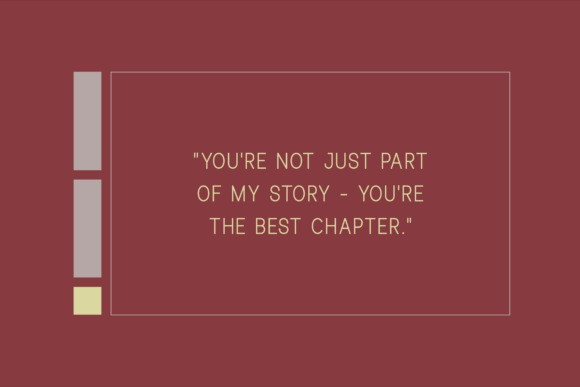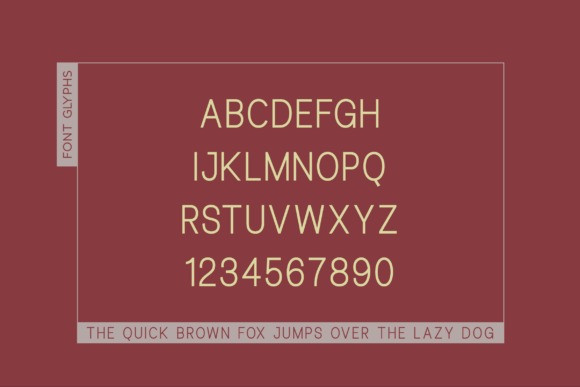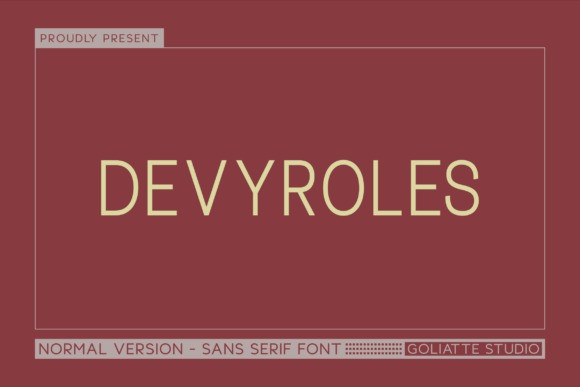
Devyroles Font
Devyroles Font is a bold, all-caps sans serif font made for the modern creative. With its clean lines and sleek, minimalist vibe, this typeface speaks strength and confidence without trying too hard. Perfect for projects that need a sharp, professional edge, Devyroles shines across logos, websites, and print materials — anywhere you want to make a strong visual statement.
Built on a sturdy geometric foundation, Devyroles is as versatile as it is striking. Its all-caps style ensures clarity and impact, making it an easy go-to for bold headlines, posters, or any design where your message needs to stand out loud and clear.